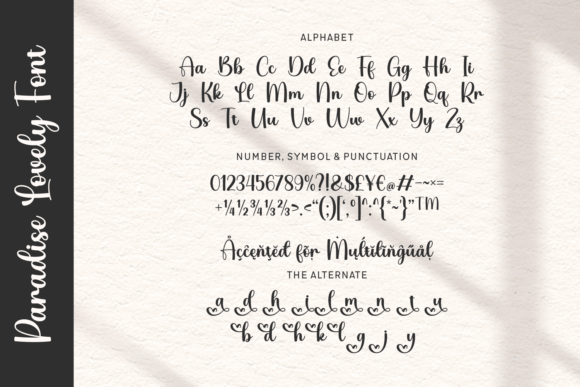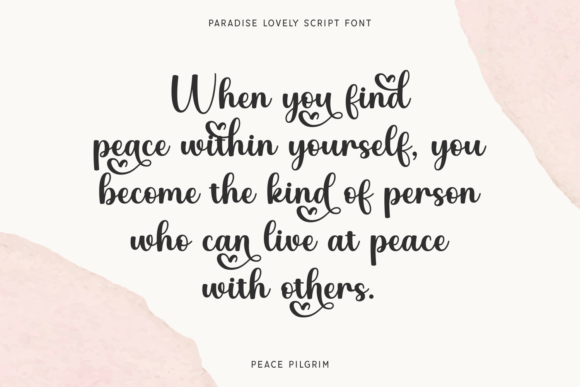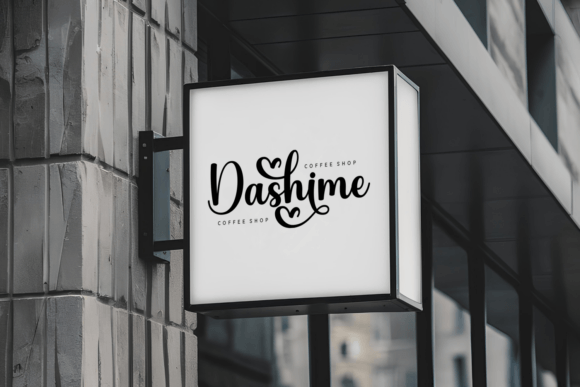
Introduction to Paradise Lovely Font
As designers, we’ve all been there – staring at a blank canvas, searching for the perfect font to bring our creative project to life. It’s in these moments that we crave a font that exudes elegance, sophistication, and a touch of romance. For many, that perfect font is the Paradise Lovely Font – a stunning calligraphy font that boasts high-quality curves and swirls, giving any design a soft and enchanting look.
Whether you’re working on a wedding invitation, a birthday card, or any other special project, the Paradise Lovely Font is an invaluable resource that adds a touch of charm and creativity to your design. With its beautiful, flowing letters, this font is perfect for designers who want to create high-quality, visually appealing designs with a transparent background.
Key Features of Paradise Lovely Font
- High-quality, elegant design suitable for creative projects and design resources.
- Features a transparent background, allowing for easy layering and customization.
- Includes a variety of font styles, including bold and regular weights.
- Unique characteristics include delicate flourishes and ornate details, adding a touch of sophistication to any design.
Honest Review: Paradise Lovely Font
I recently had the chance to work with the Paradise Lovely Font, and I must say it’s a great addition to any designer’s toolbox. ✨ One of the things that stood out to me was its high quality and versatility. It’s perfect for creating a beautiful, elegant look for any creative project.
- High-quality design that’s perfect for any creative project
- Features a beautiful, transparent background that adds a touch of sophistication
However, I did encounter a few limitations. ⚠️ The font’s size is quite limited, and it may not be the best choice for large-scale text. Additionally, the font’s boldness can sometimes make it difficult to read at smaller sizes.
Overall, I’m impressed with the Paradise Lovely Font. It’s a great choice for designers looking for a high-quality, elegant font to add some sophistication to their creative project. With its transparent background and beautiful design, it’s a fantastic design resource that’s definitely worth considering.
The Paradise Lovely Font is a high-quality, free download font that can be used for various creative projects. Its transparent background makes it ideal for designing visually appealing graphics, logos, and text-based elements.
To get the most out of the Paradise Lovely Font, experiment with different font sizes, colors, and combinations. You can also use it in conjunction with other design elements, such as images and graphics, to create visually stunning designs.
Common Use Cases for Paradise Lovely Font
The Paradise Lovely Font is commonly used for designing social media graphics, presentations, and marketing materials. It’s also ideal for creating custom logos, text-based graphics, and other design elements for creative projects.